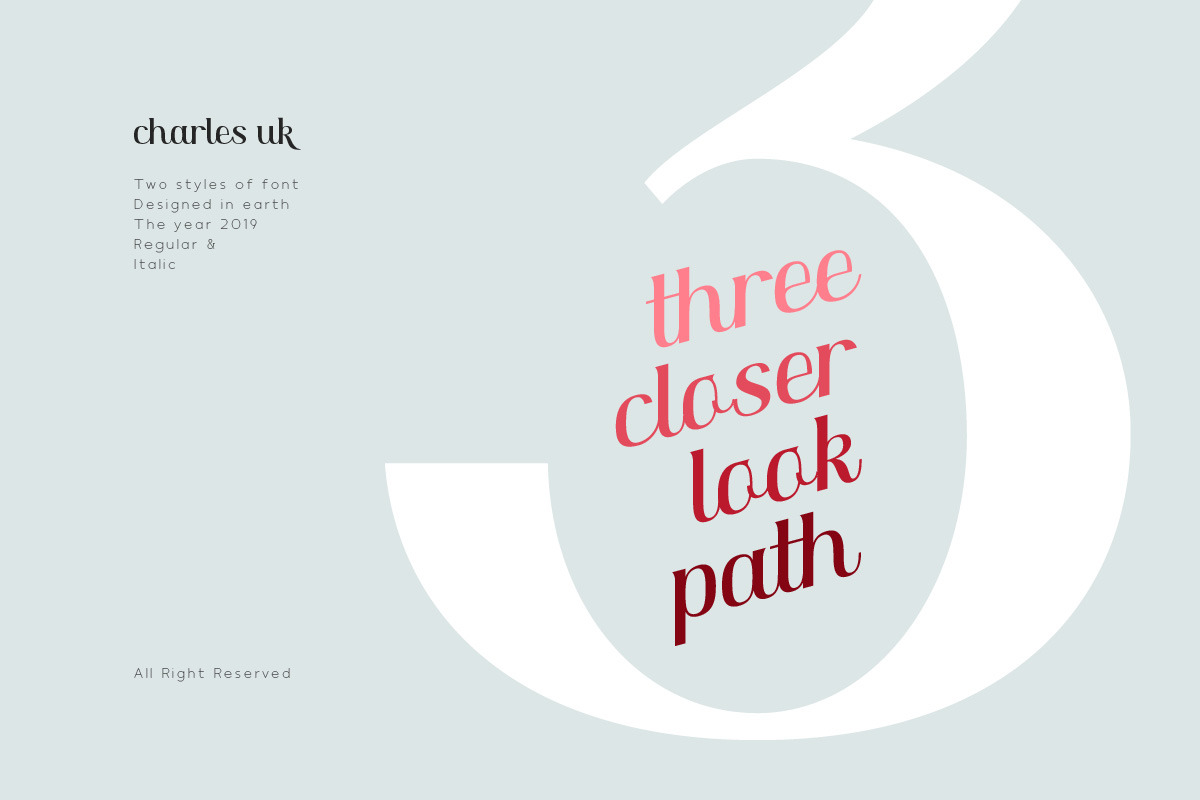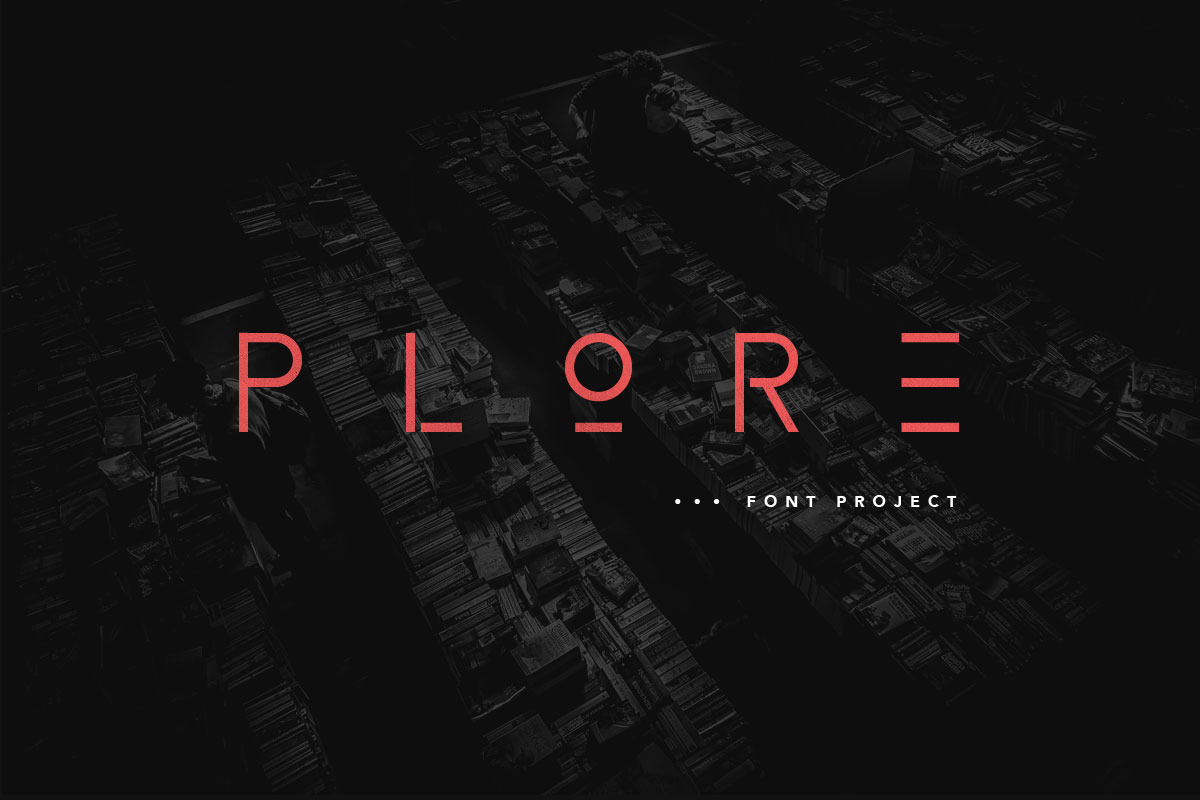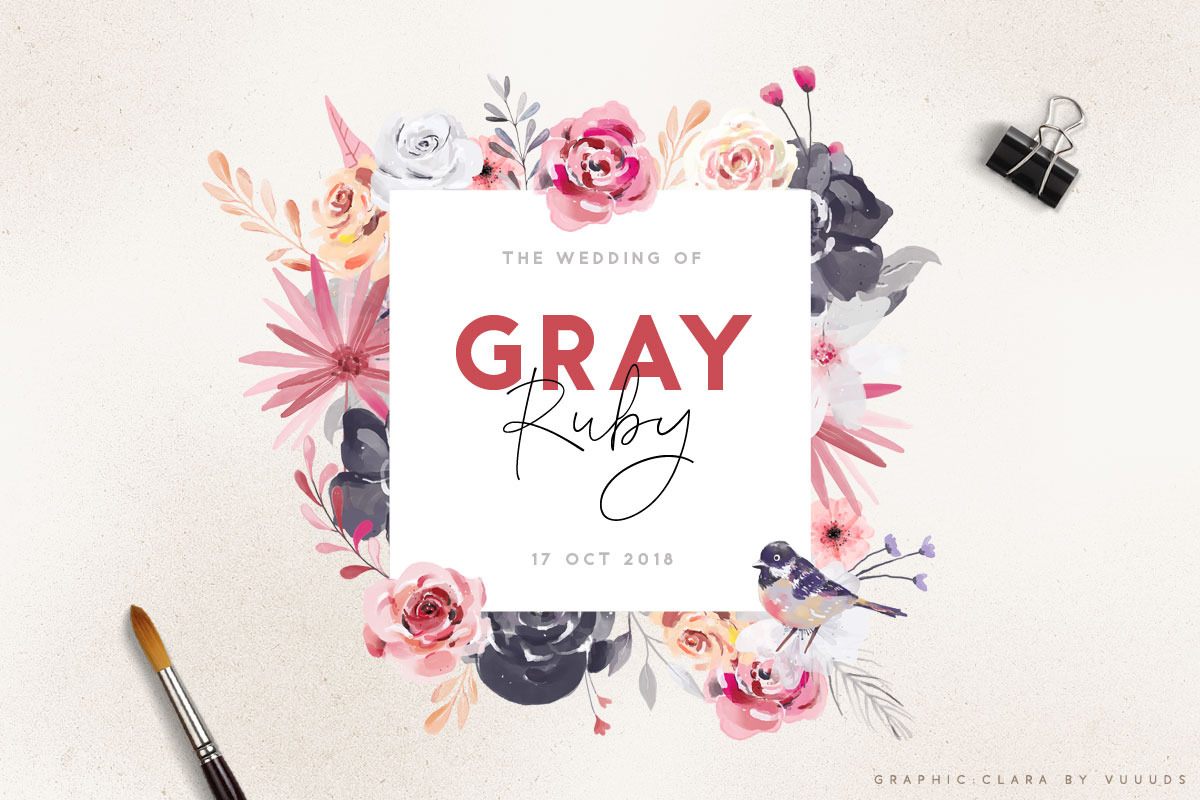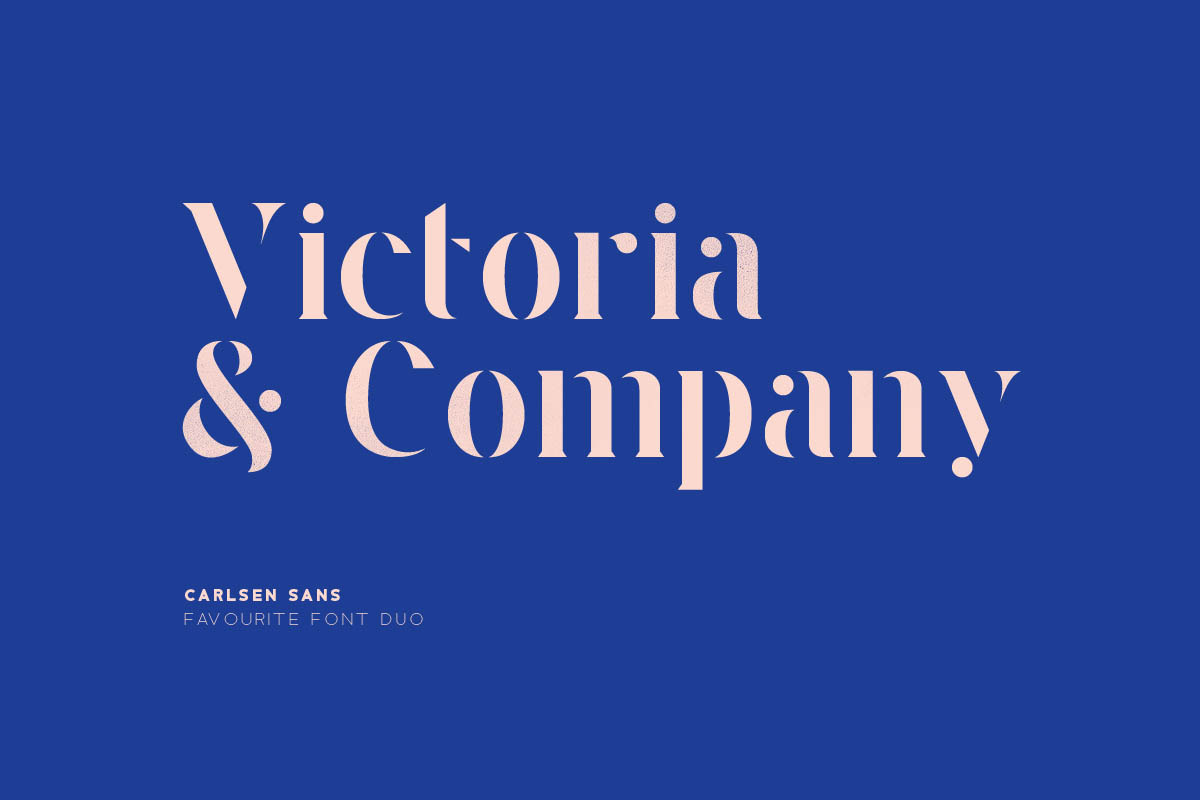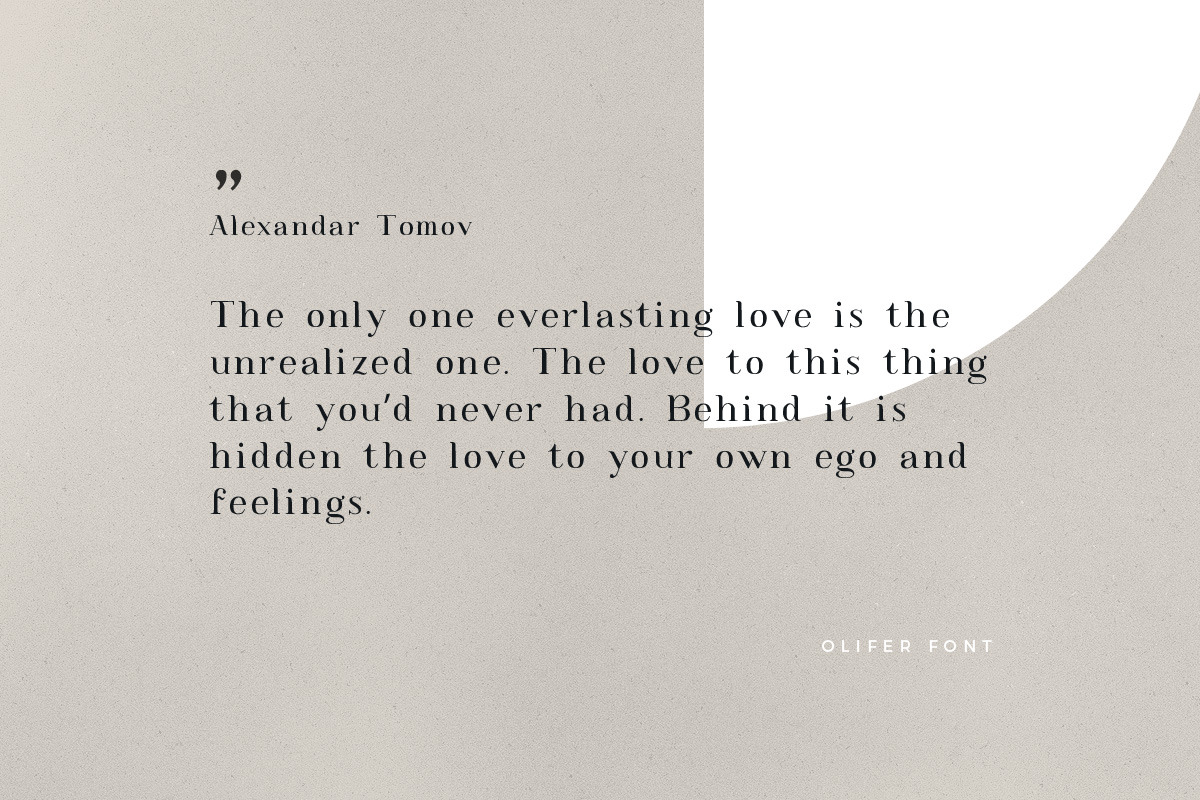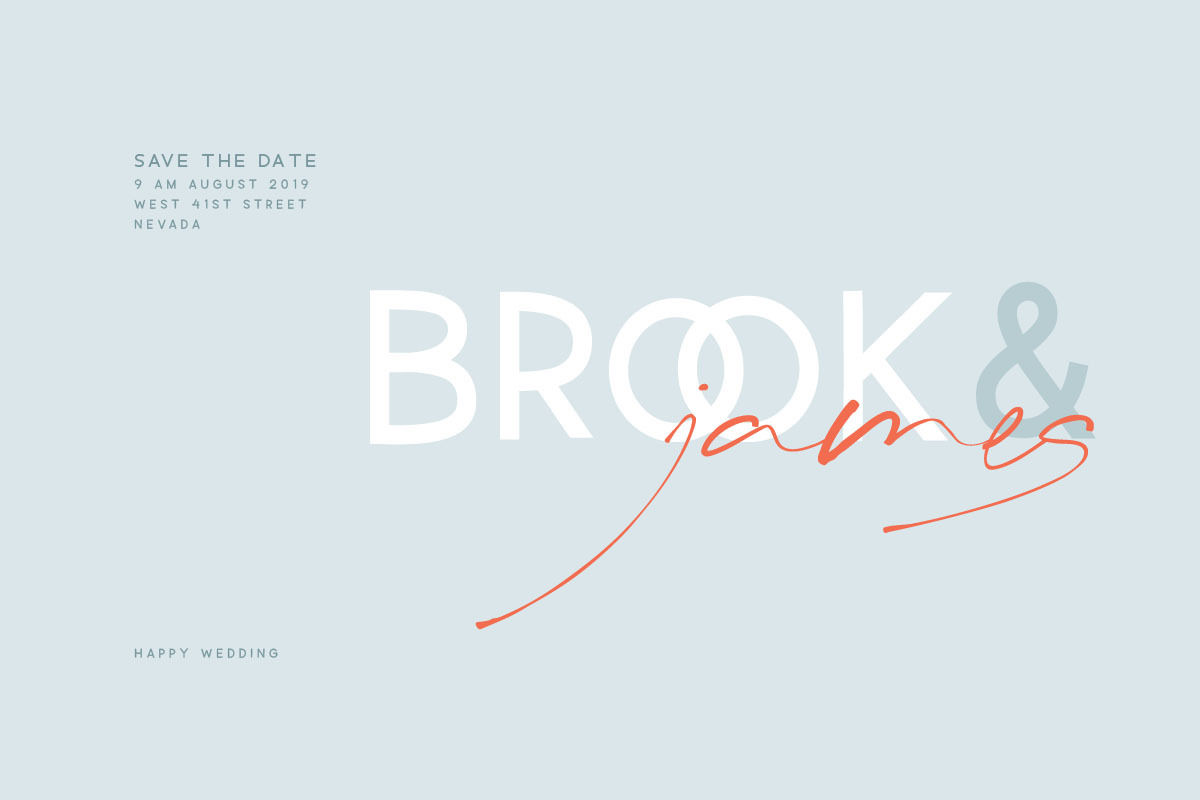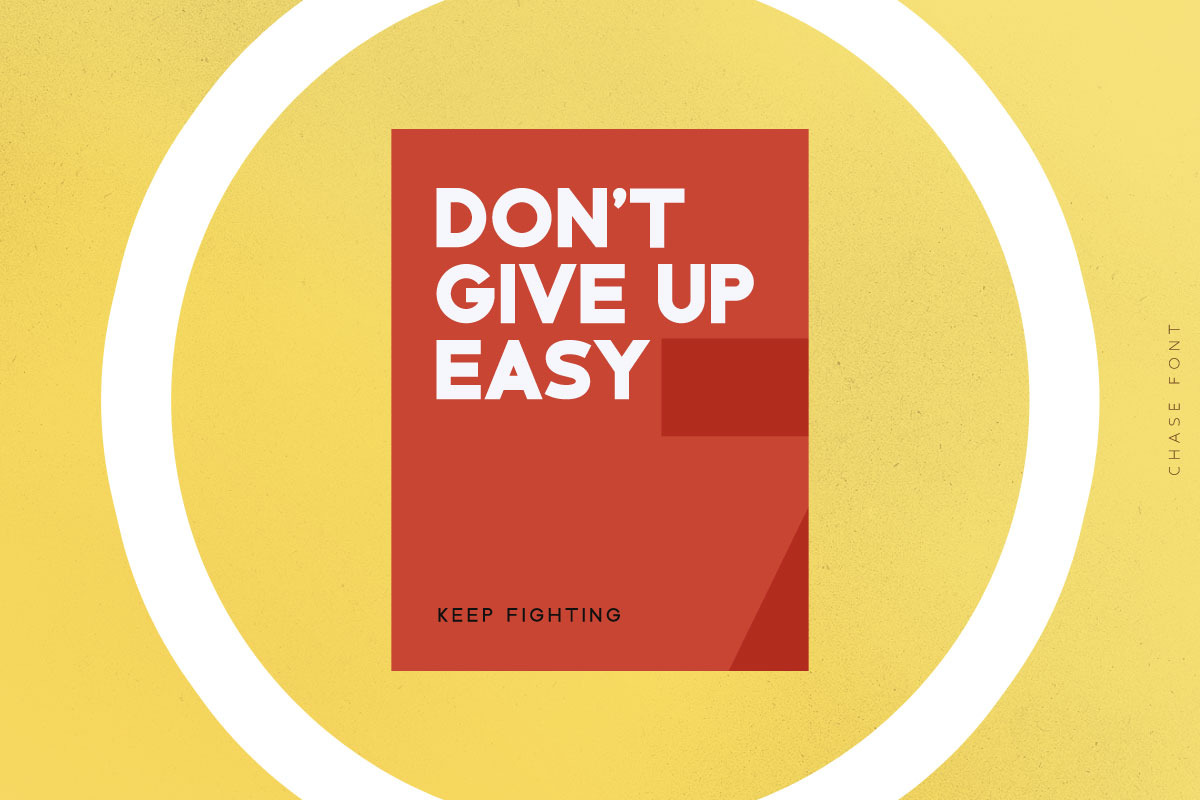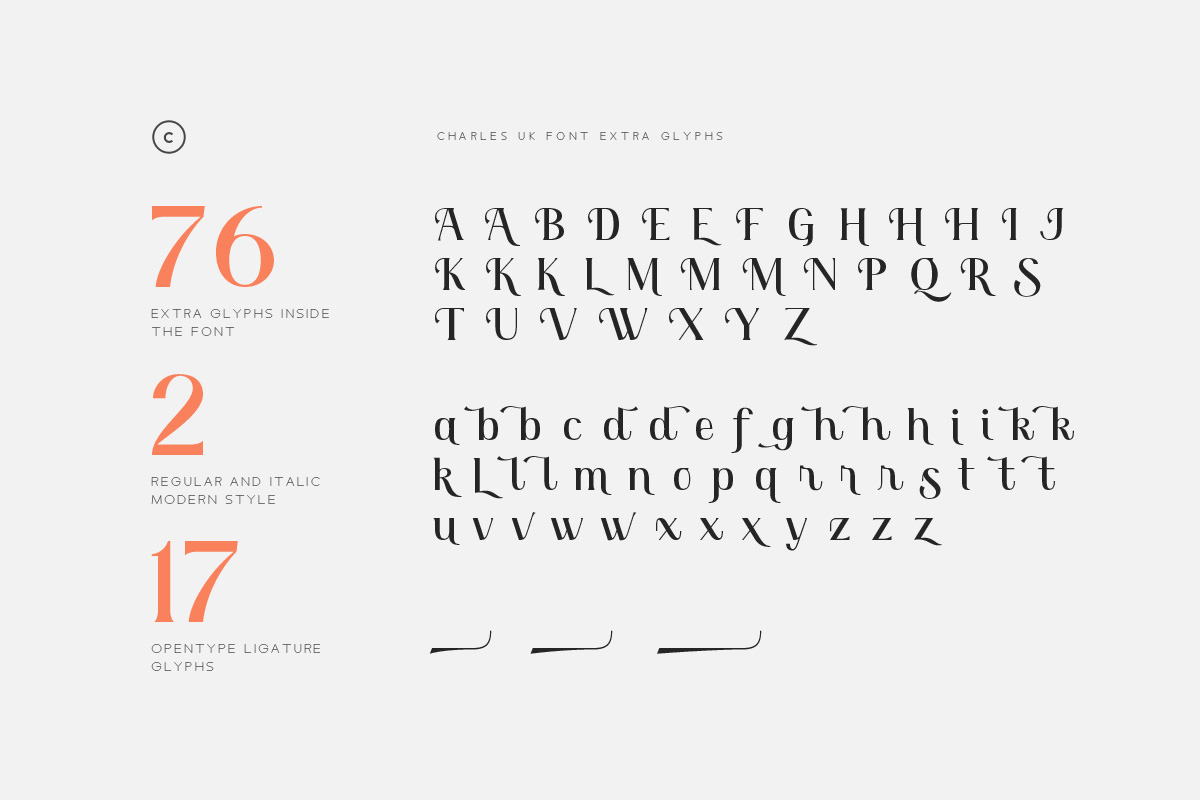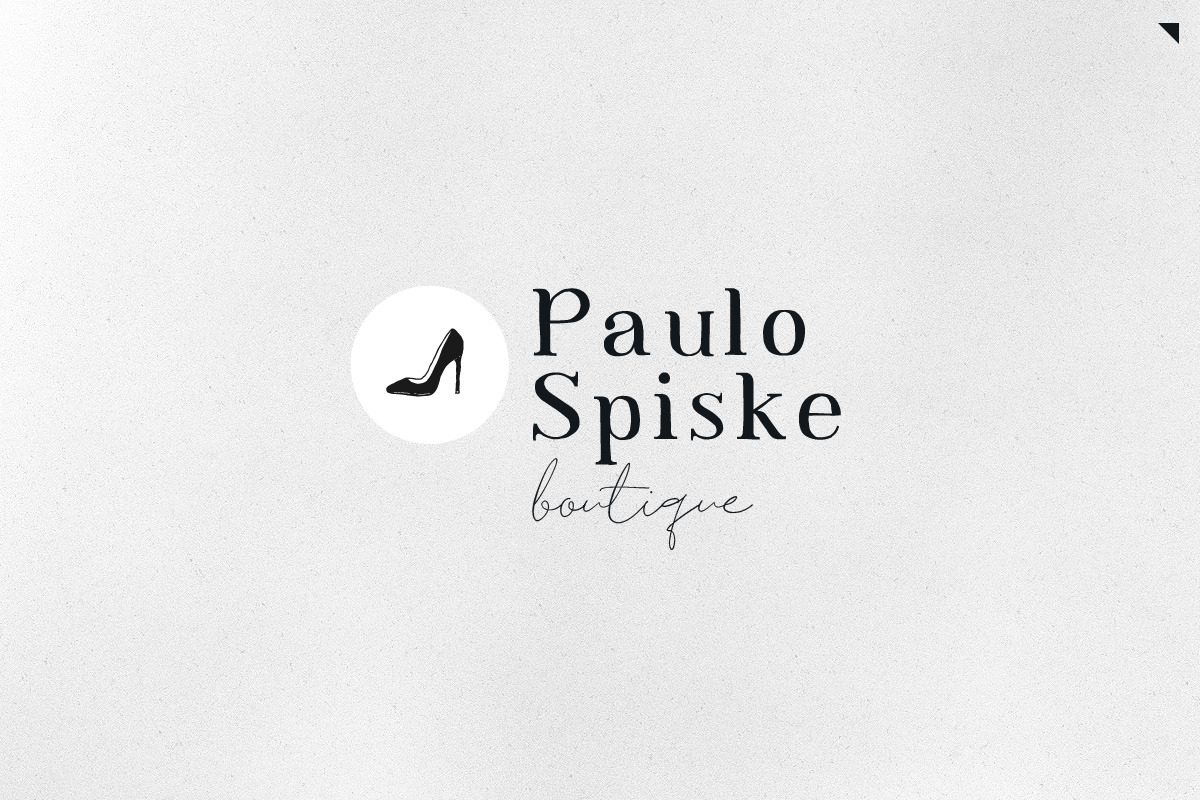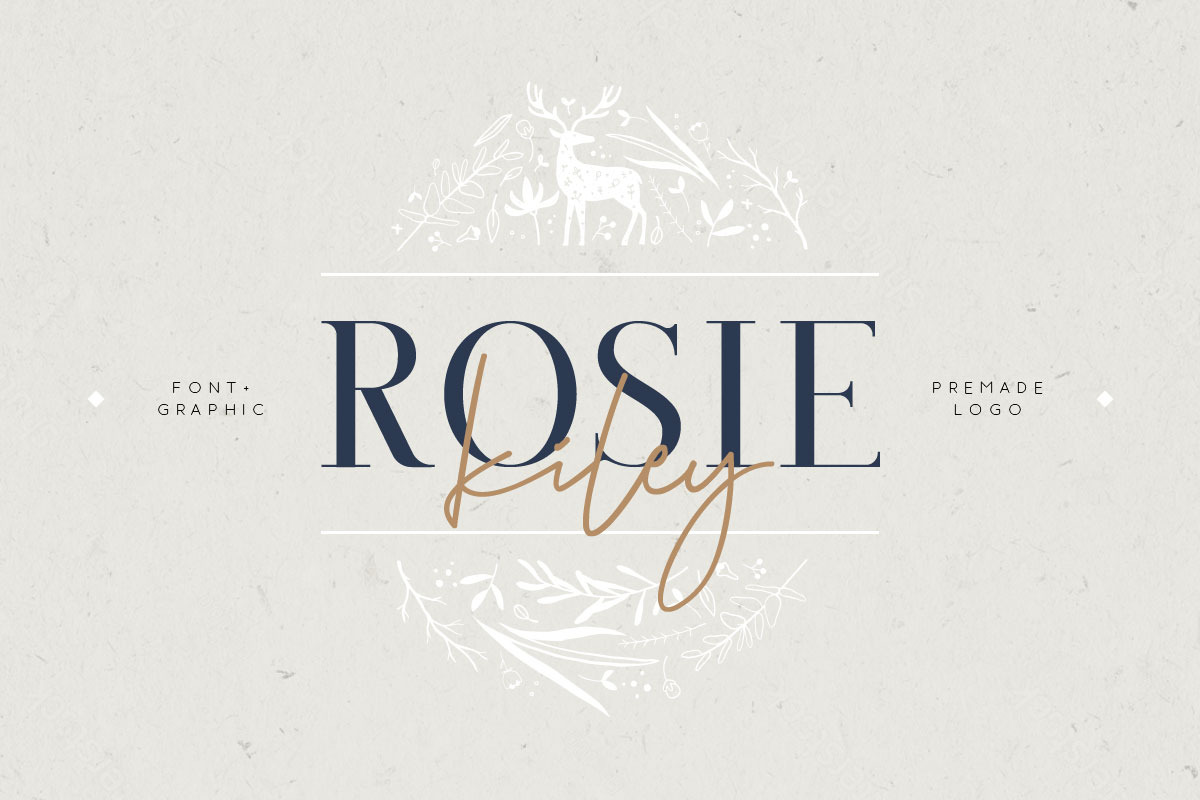
Not just contain serif style font, this bundle also contain modern script fonts. Just put the font pair into your project and your design will looks super awesome.
This bundle contain 12 items, with total 27 fonts inside.